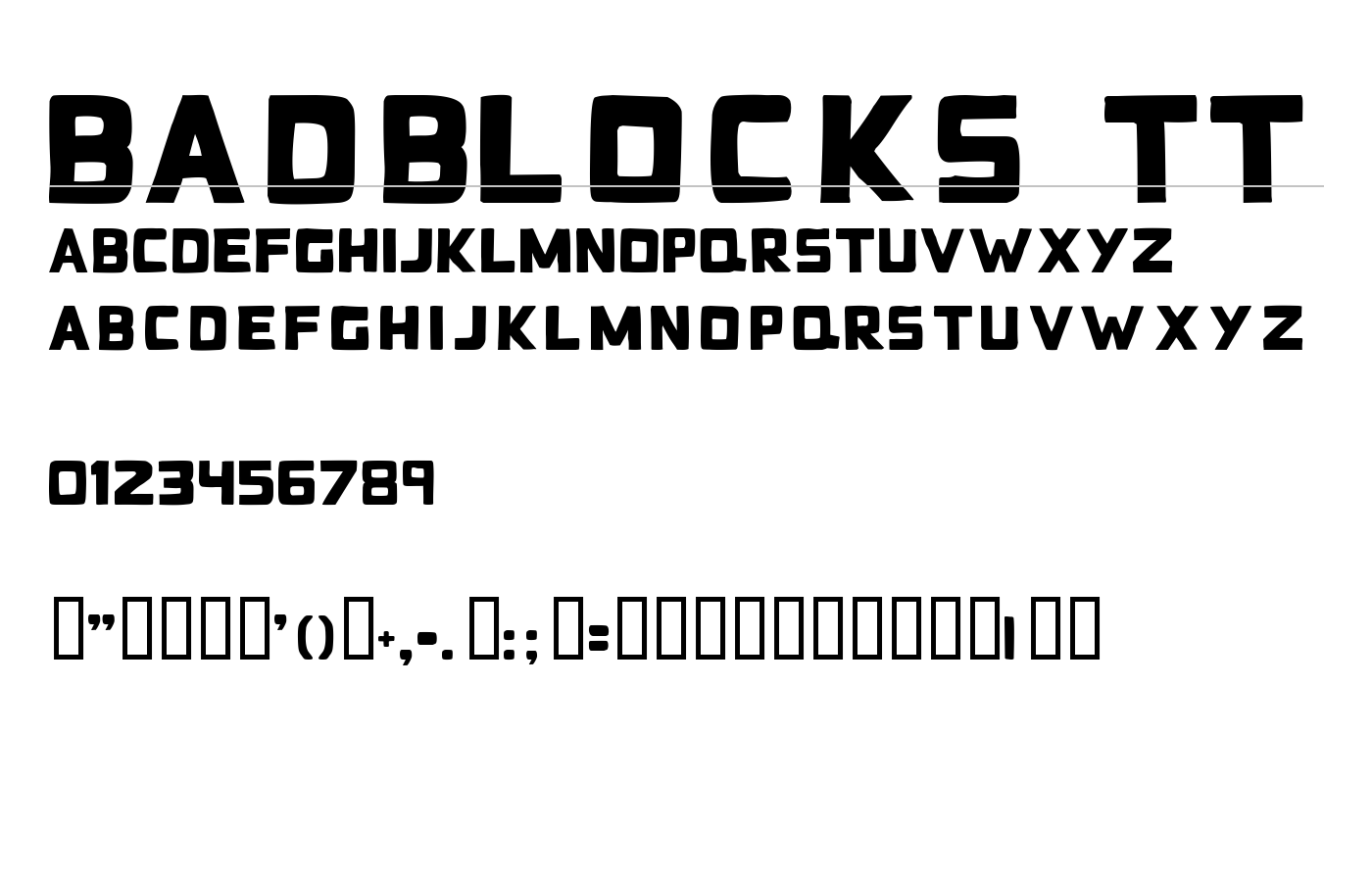
BadBlocks TT is a bold, blocky sans serif typeface with an irregular, hand-crafted feel that adds personality and strength to any design. Its wide, slightly condensed forms and uneven edges give it a playful yet rugged character, making it ideal for eye-catching headlines, posters, and branding that needs a strong, urban vibe. This font works well for designs that want to balance boldness with uniqueness, especially in creative, casual, or youth-oriented projects.
BadBlocks TT Font